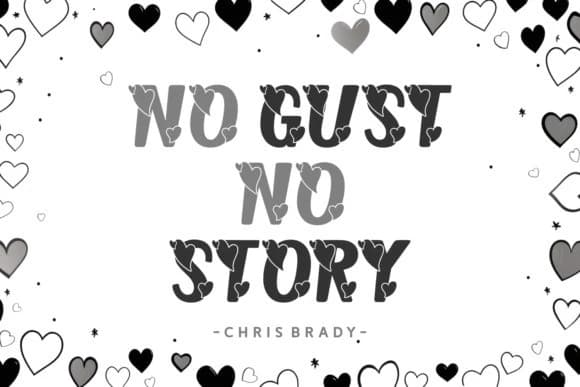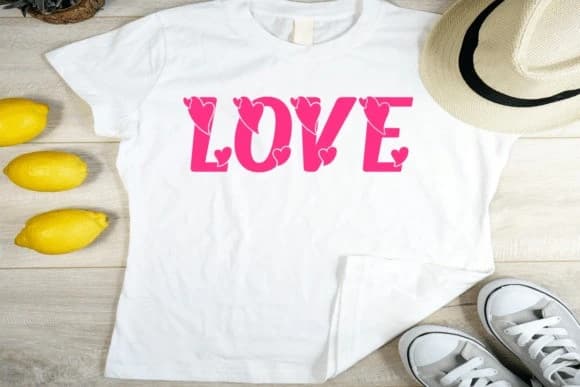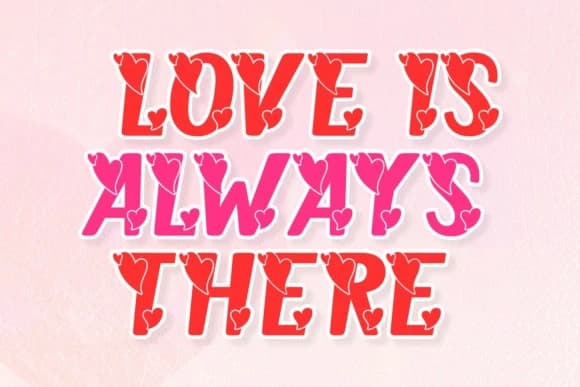
Lasted Loves Font
Lasted Loves Font. This decorative font is not just intricately designed; it embodies a charming blend of love and simplicity, making it ideal for wallpapers, crafts, and social media designs. Its elegant cursive style has multilingual support that uplifts and enhances every text’s look, lending it the feel of handwritten authenticity.